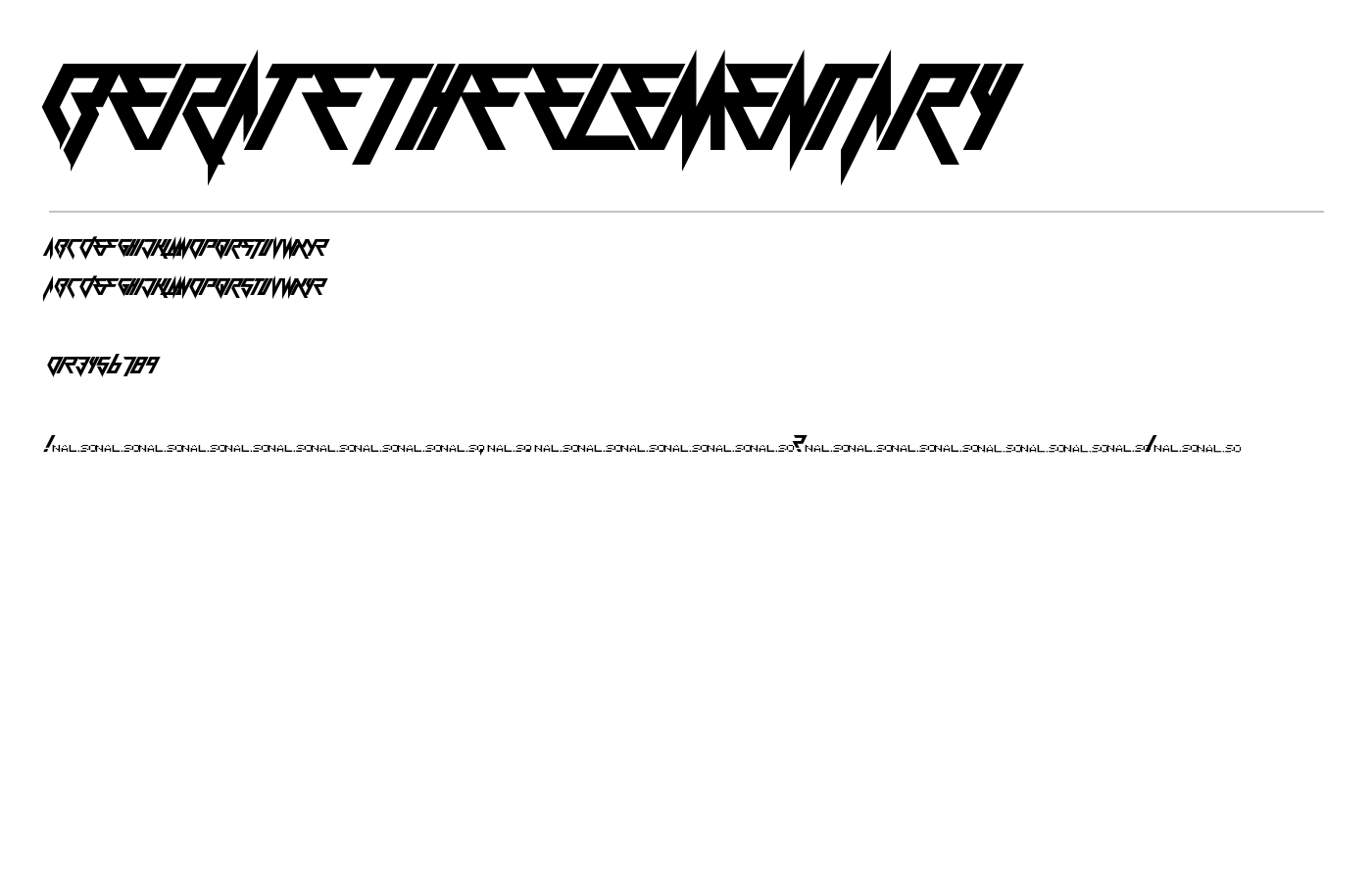
Berate The Elementary is a bold, angular display font with sharp, geometric strokes that create a futuristic and edgy vibe. Its condensed width and high contrast between thick and thin lines give it a dynamic, intense feel, making it perfect for eye-catching headlines, logos, and designs that want to stand out with a modern, aggressive personality. This font works best in creative projects where a strong visual impact is needed rather than for body text or long reading.
Berate The Elementary Font
About Berate The Elementary Font